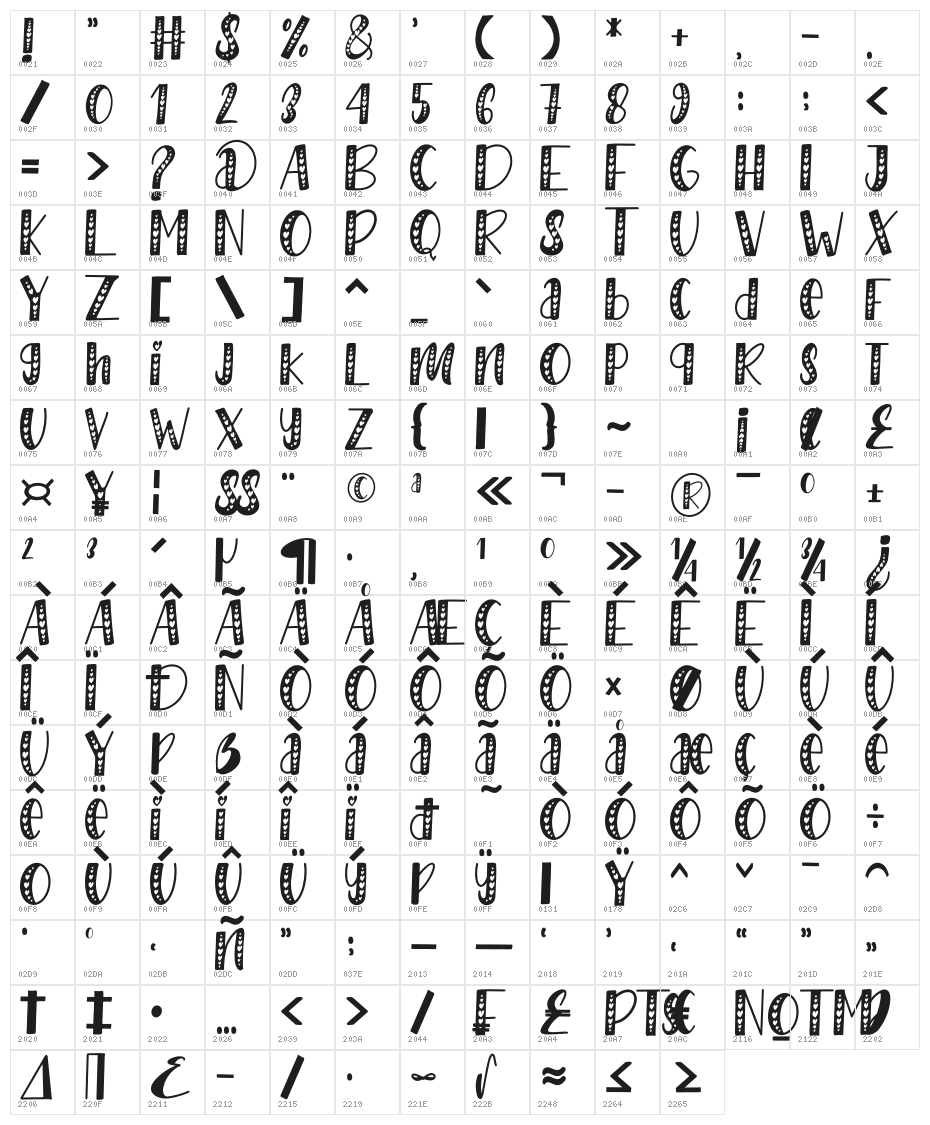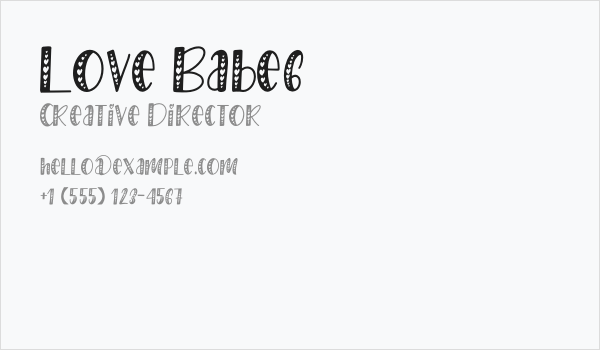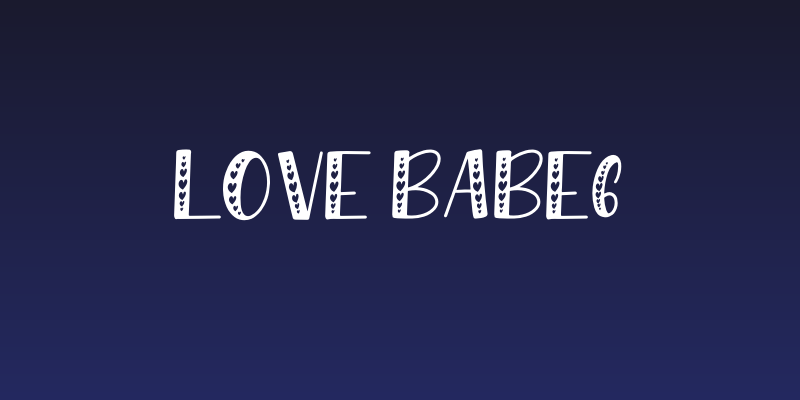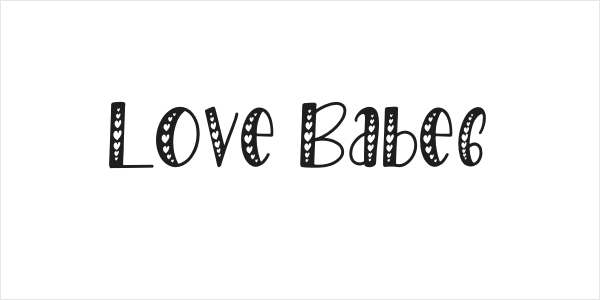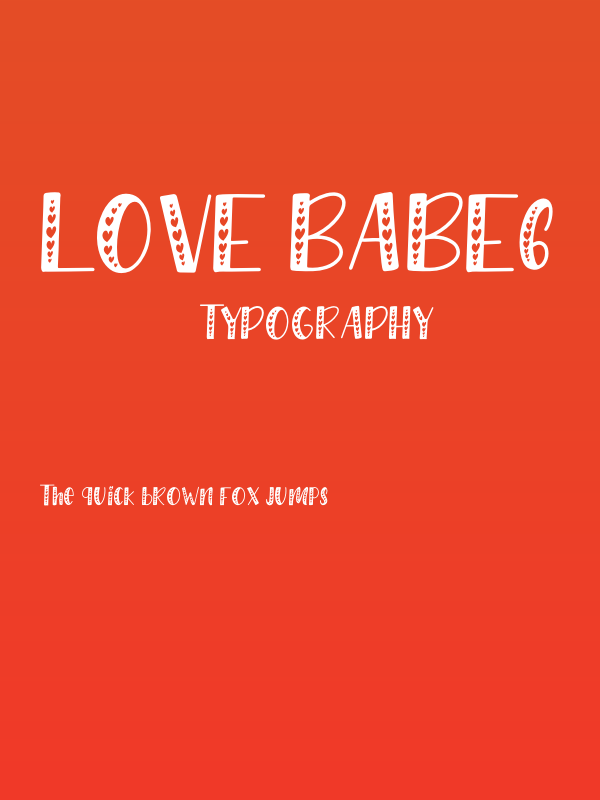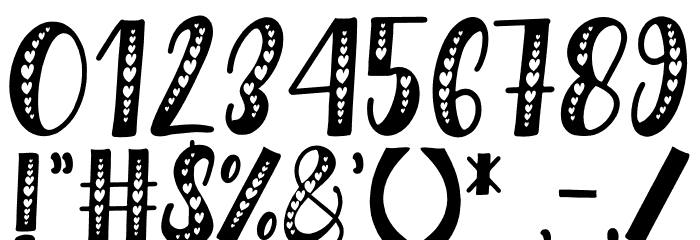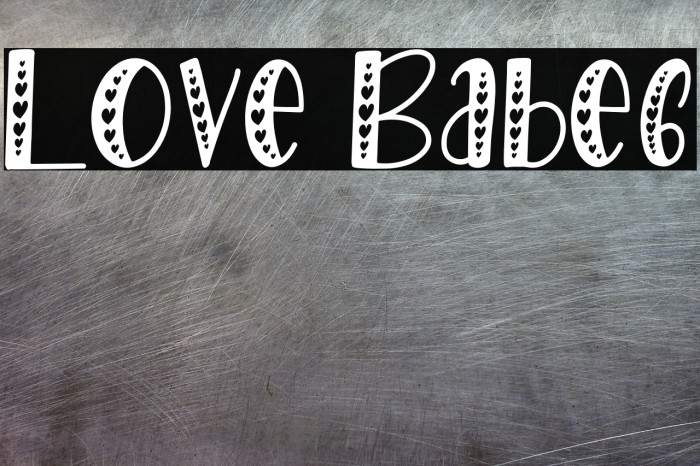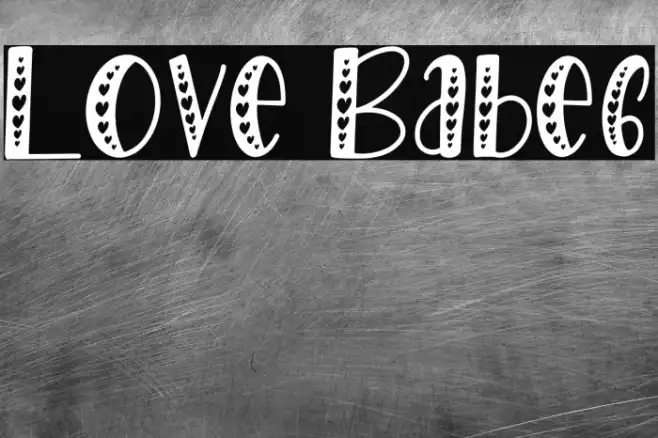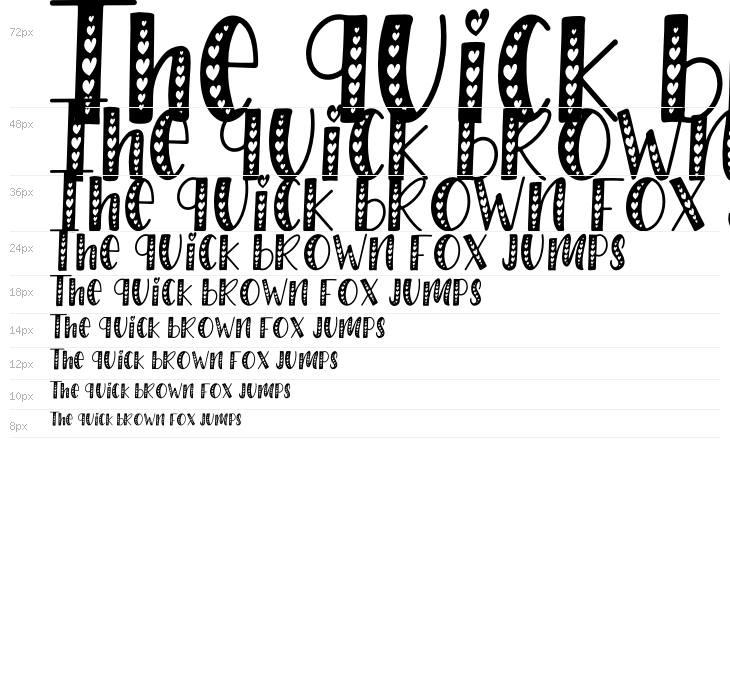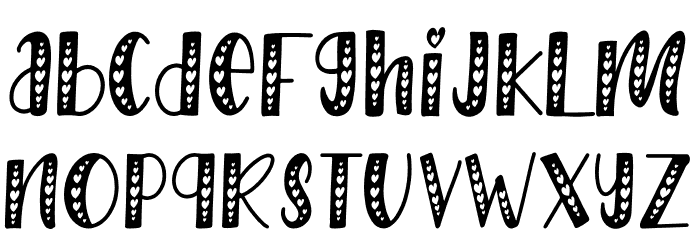
Love Babe6 Font
Love Babe6 Description
This playful and decorative font features bold, rounded letters filled with heart-shaped cutouts, giving it a charming and whimsical appearance. The uppercase and lowercase letters maintain a consistent style, with a slight slant that adds a dynamic feel. The numbers and special characters are designed to match the overall theme, making it perfect for projects that require a touch of romance or fun. The font's unique design makes it stand out, while the heart motifs add a sense of warmth and affection.
| Proposed Projects | Ideal for Valentine's Day cards, wedding invitations, love-themed posters, and playful branding projects. |